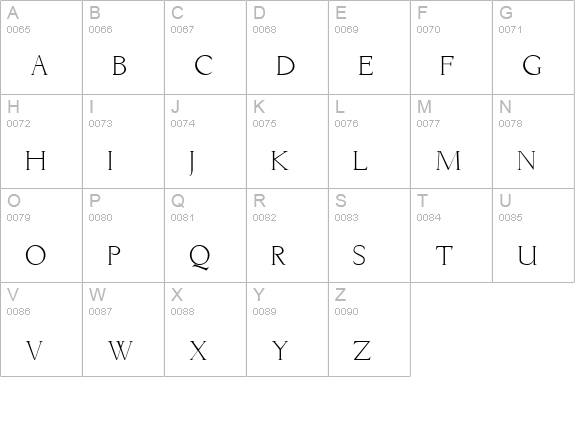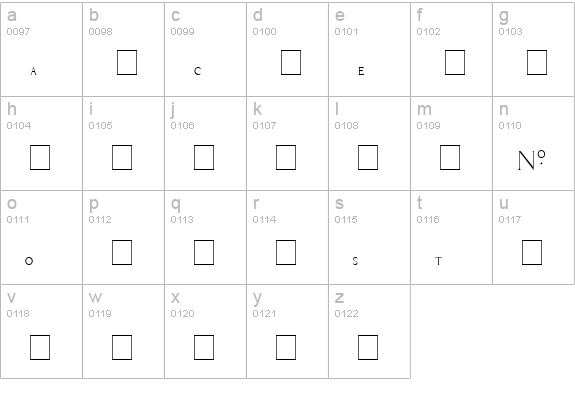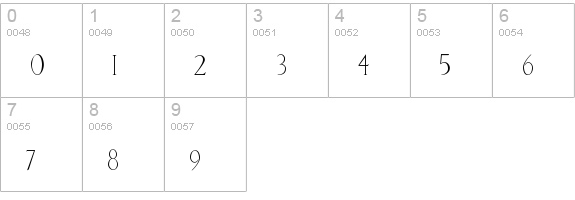
Livia Medium is a balanced, medium-weight variant in the Livia typeface family \xE2\x80\x94 well suited to sub-headlines, navigation, and balanced editorial work.
Livia Medium is a versatile and elegant font that strikes the perfect balance between sophistication and readability. With its clean lines and modern aesthetic, this typeface exudes a sense of timeless beauty that is sure to elevate any design project. Whether you're working on a branding campaign, editorial layout, or website design, Livia Medium is the perfect choice to add a touch of class and elegance. The best part? Livia Medium is available for free download at FontsMarket.com. This means you can easily access this stunning font and incorporate it into your projects without breaking the bank. Don't miss out on the opportunity to enhance your designs with the exquisite Livia Medium font – download it for free today and let your creativity shine!